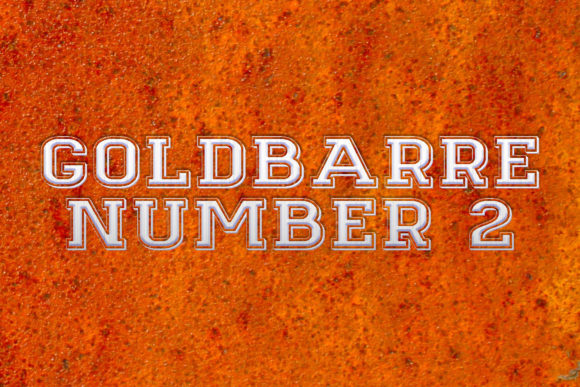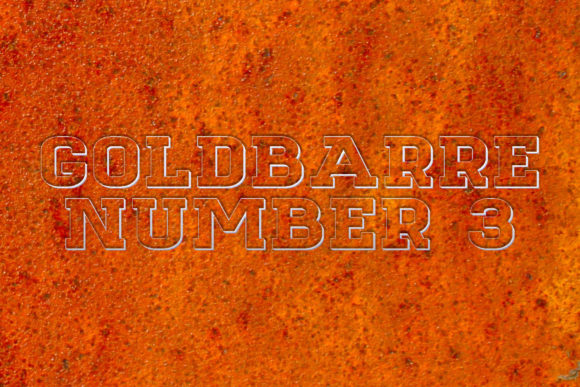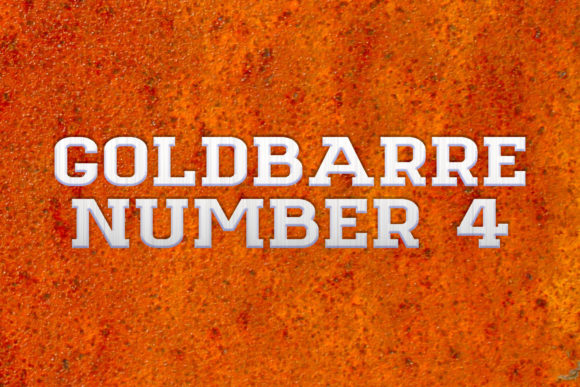
Introduction to Goldbarre Font
Goldbarre is a bold, thick lettered and authentic display font.
It will look great on any poster flyer or print that needs to stand out Use this font for your designs and explore its endless possibilities.
Key Features of Goldbarre Font